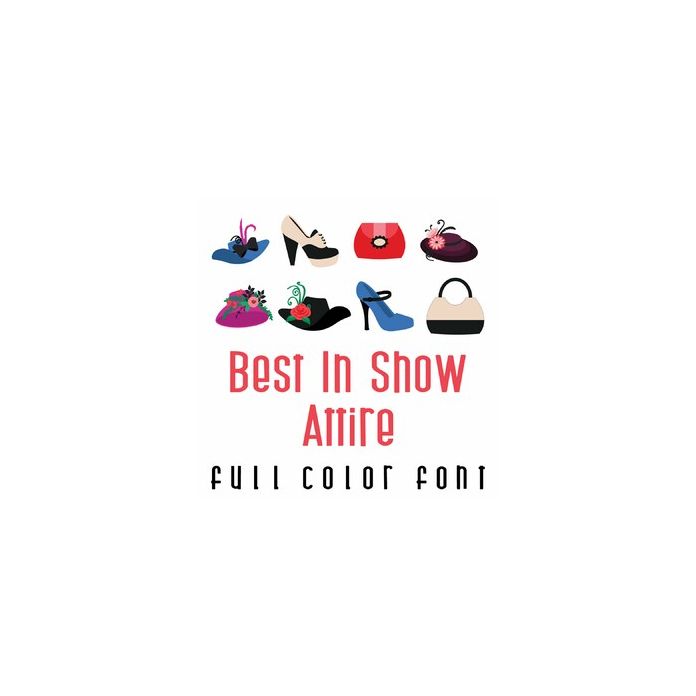
This adorable full-color doodlebat font features 26 fashionable hats, purses,and shoes, perfect for the Kentucky Derby. Perfect for cards, crafts, gifts, decor, scrapbook pages, planner stickers, and more!